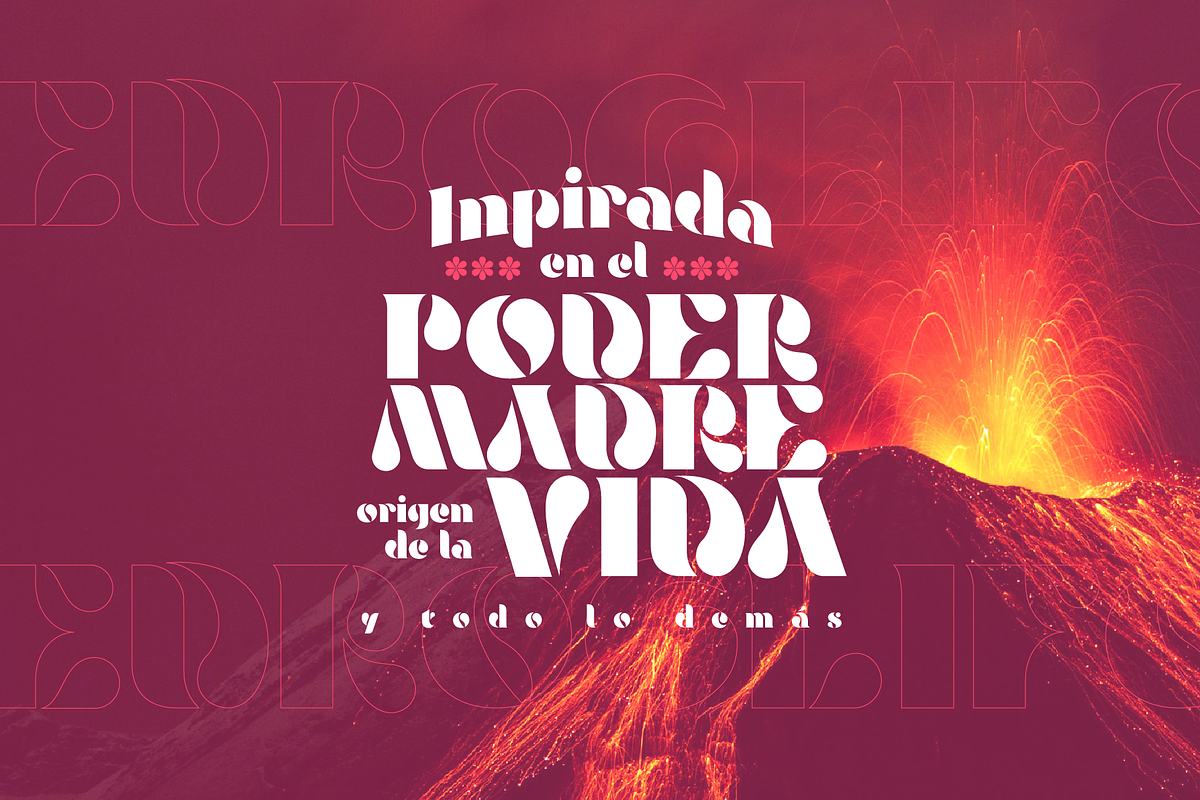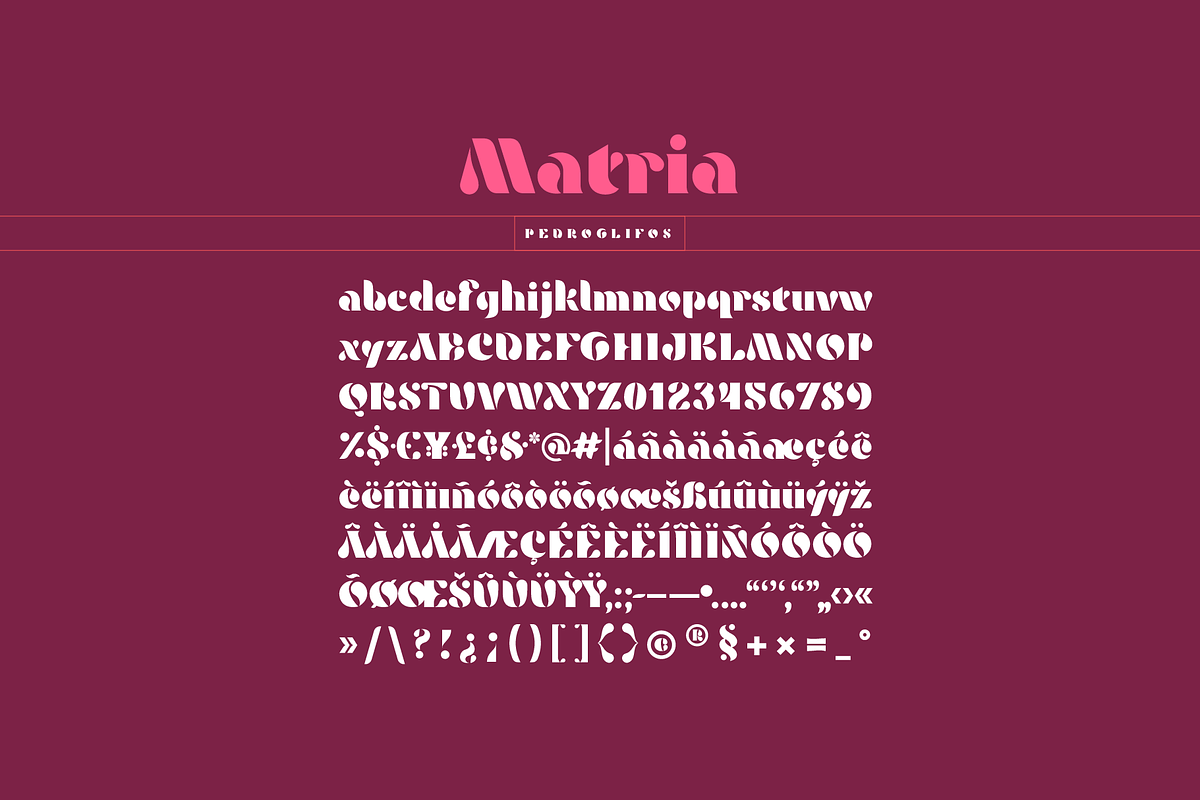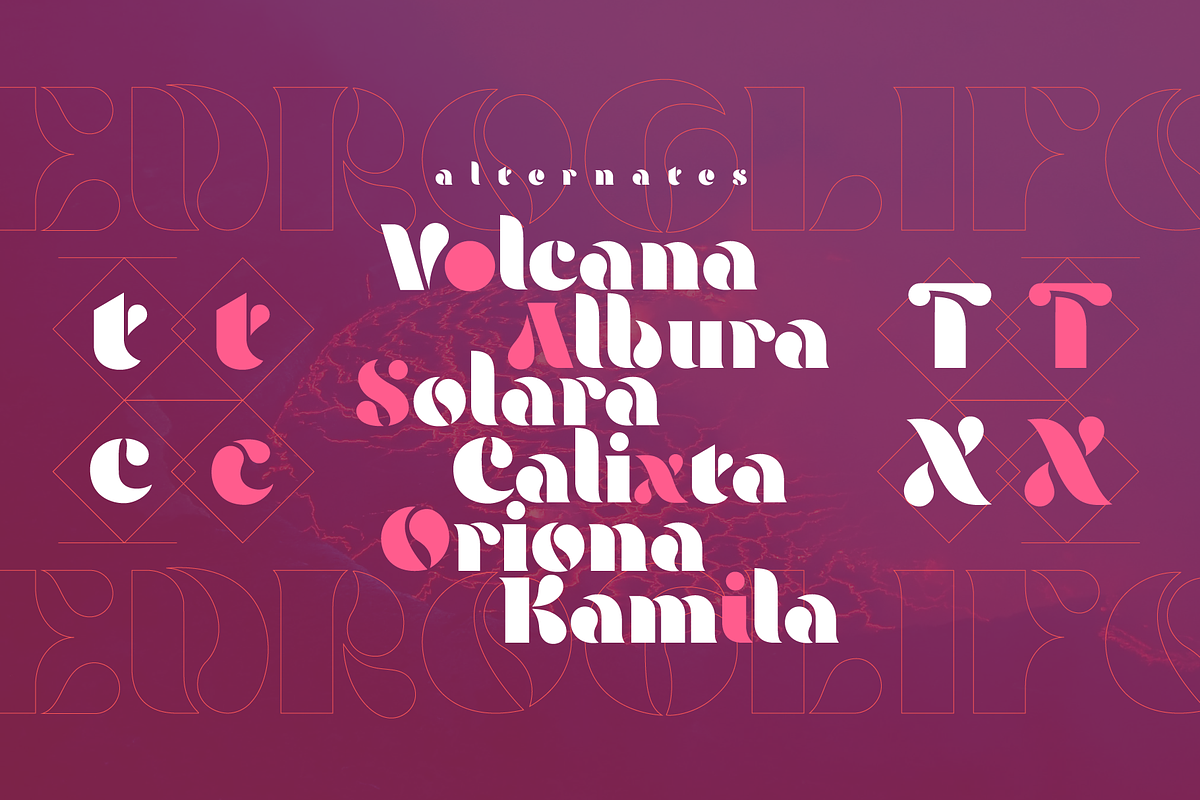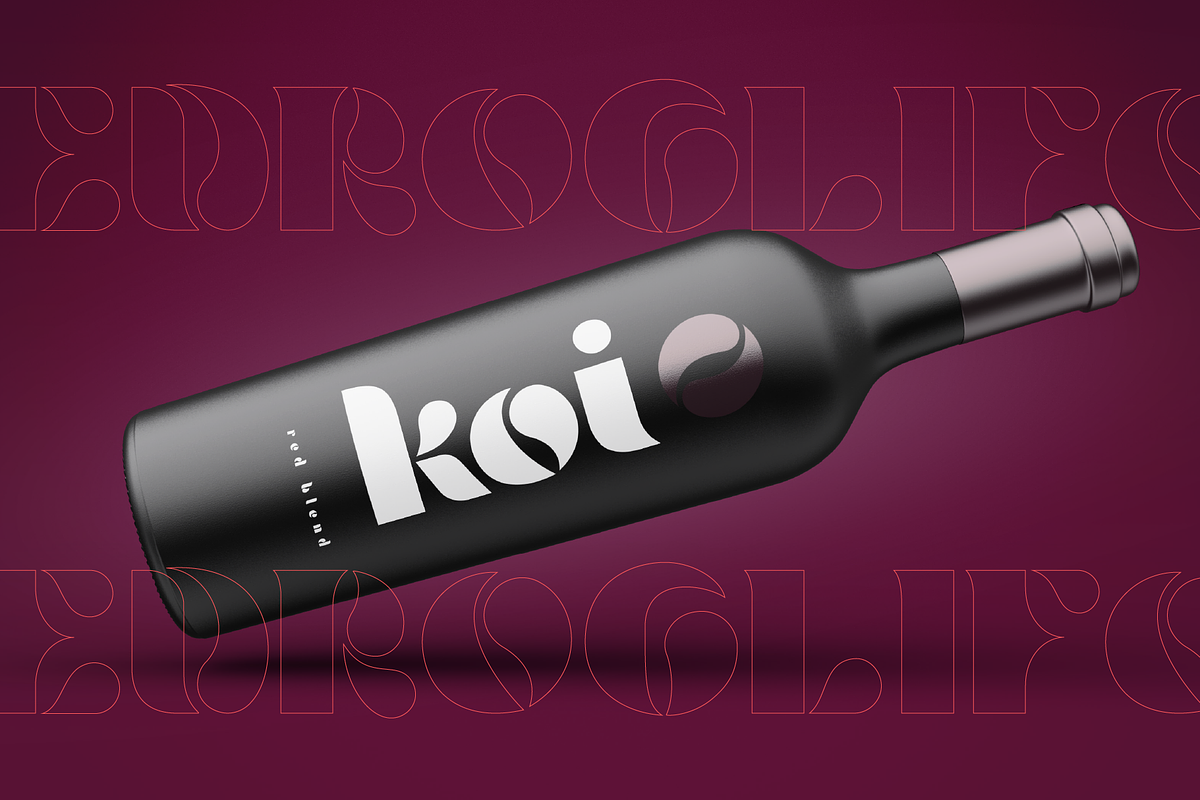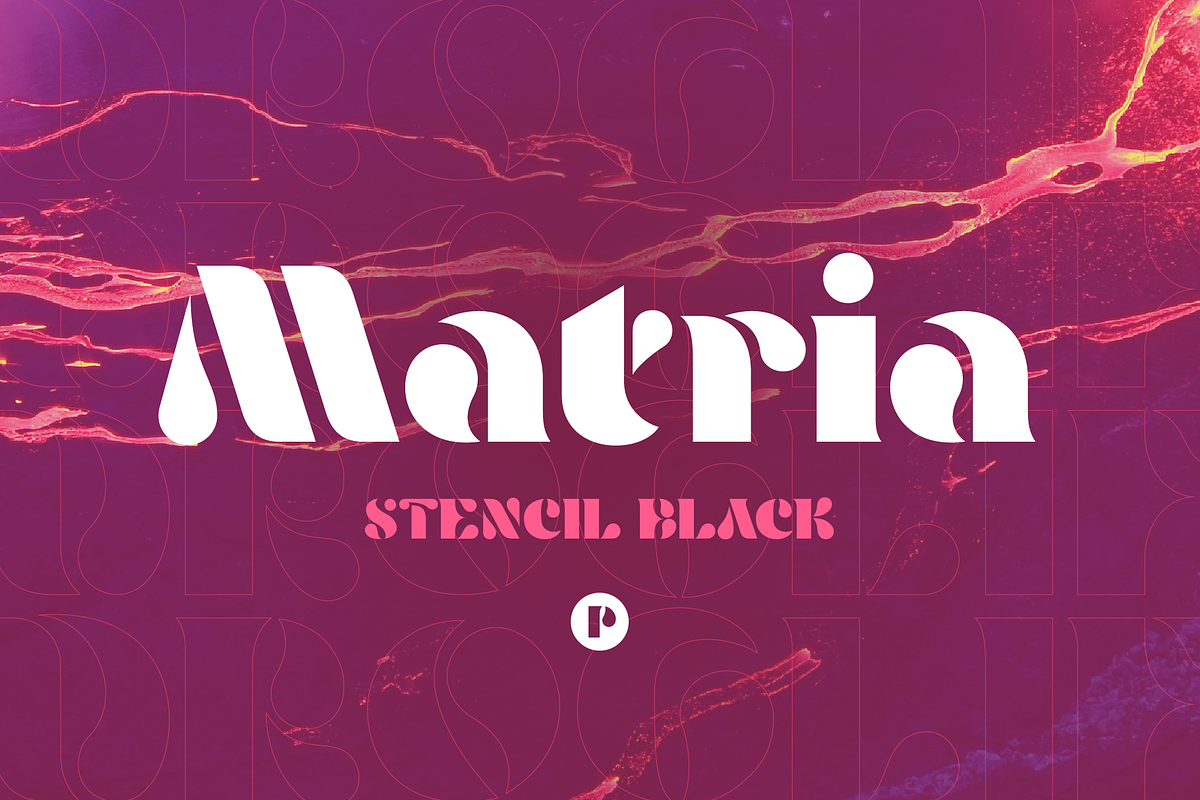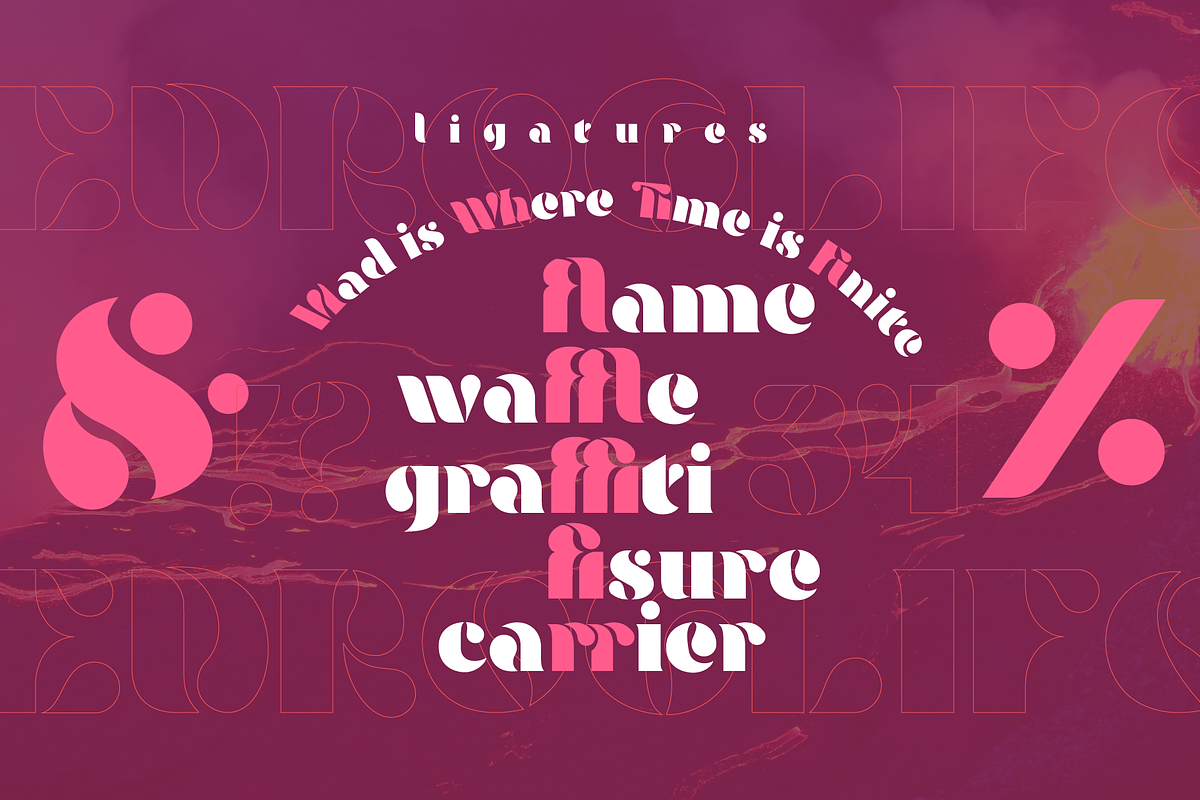
Maria Stencil Black
Two opposing forces dancing as one
Have you ever noticed how stencil fonts often exude strength and boldness, but seem to lack that feminine touch? Matria challenges this norm by bringing back the flexibility and unpredictability of motion to rational stencil work. Inspired by the yin yang symbol, Matria gracefully flows in many directions while maintaining a sense of resilience. It symbolizes the power of sensibility, with each character embodying a drop that breaks the rigid forms of its stoic counterparts. What sets Matria apart is its unique character design —each letter seems to dance on the page, breaking free from the rigid forms of traditional stencils. Matria is more than just a font; it's a war cry for its motherland.